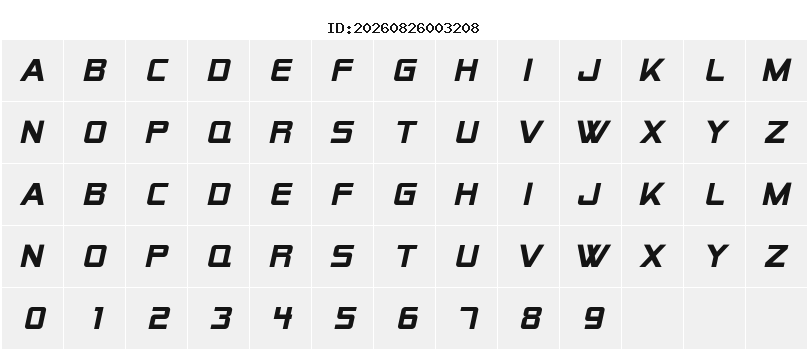
SF Alien Encounters Solid Preview
• Font Name: SF Alien Encounters Solid
• Font ID: ShyFontsTypeFoundry: SF Alien Encounters Solid Italic: 2001
• Full Font Name: SF Alien Encounters Solid Italic
• PostScript Name: SFAlienEncountersSolid-Italic
• Designer: ShyFonts Type Foundry
• Description: SF Alien Encounters Solid Italic is a trademark of the ShyFonts Type Foundry.
About SF Alien Encounters Solid.ttf
SF Alien Encounters Solid.ttf is a modern, elegant sans-serif font designed for ultimate readability and visual harmony. Perfect for branding, headlines, web design, and print materials.